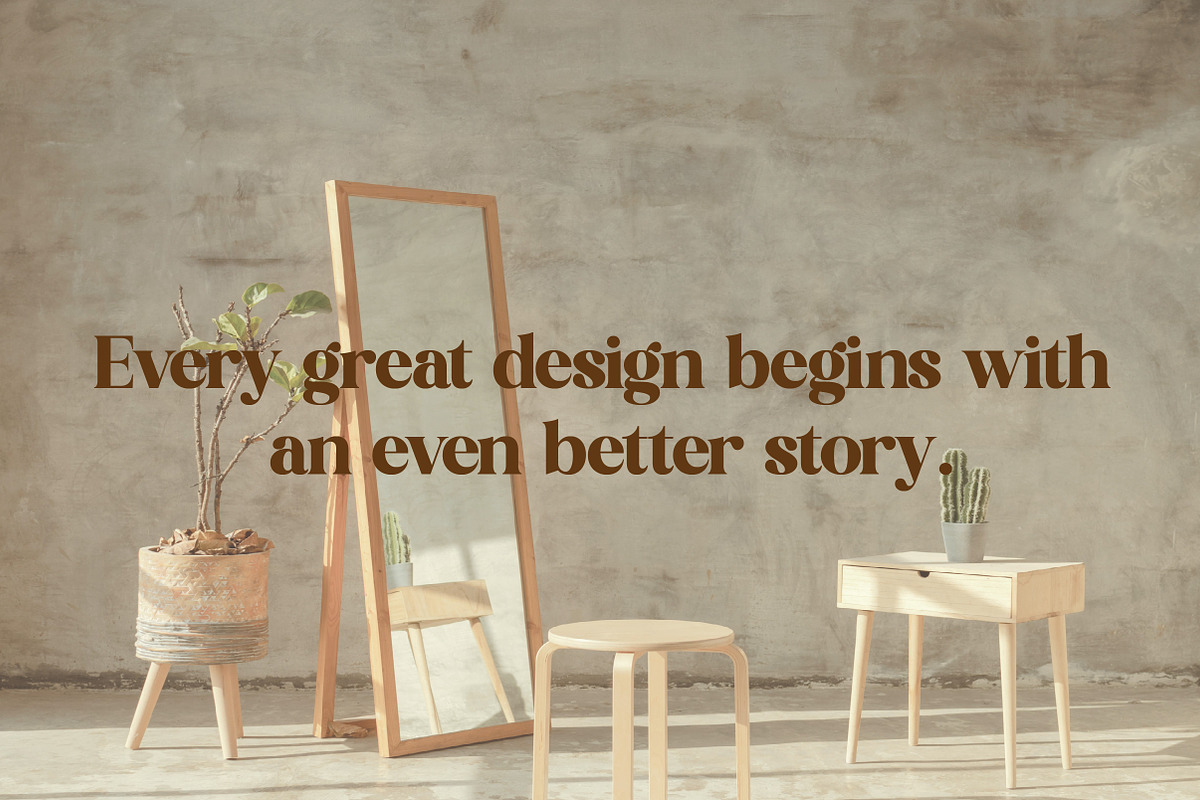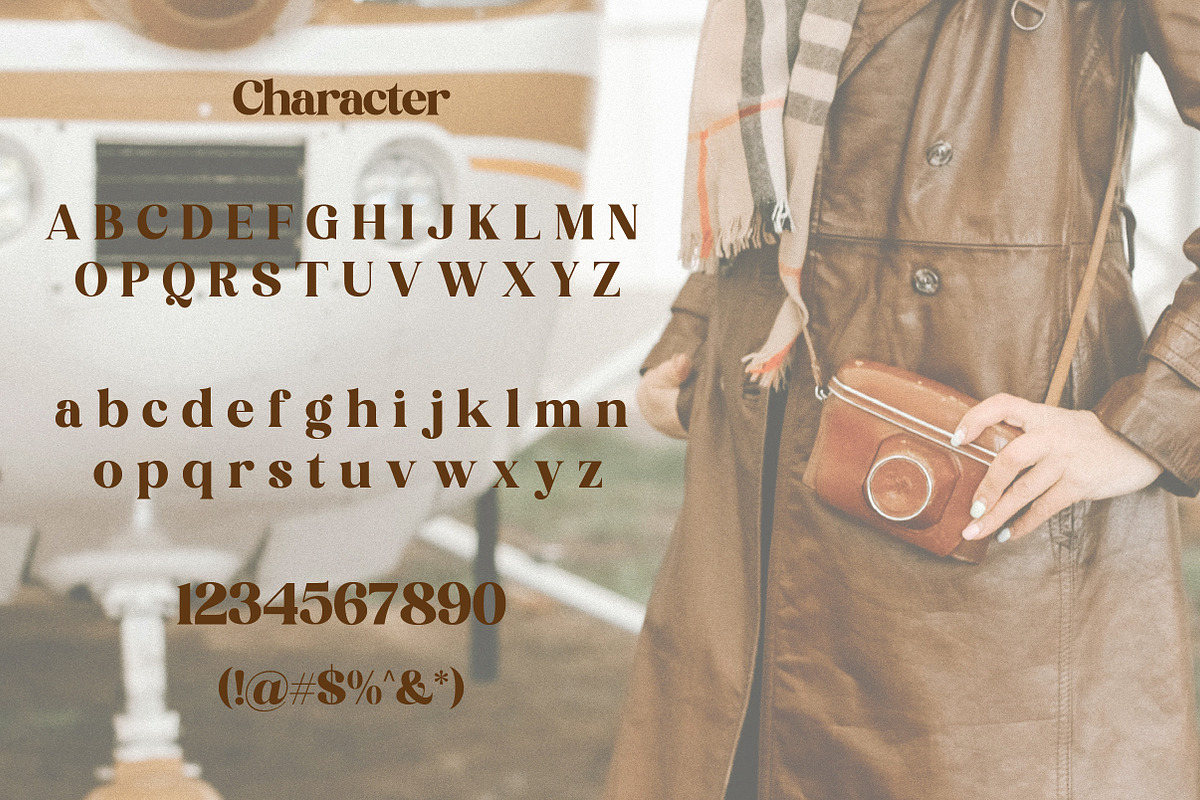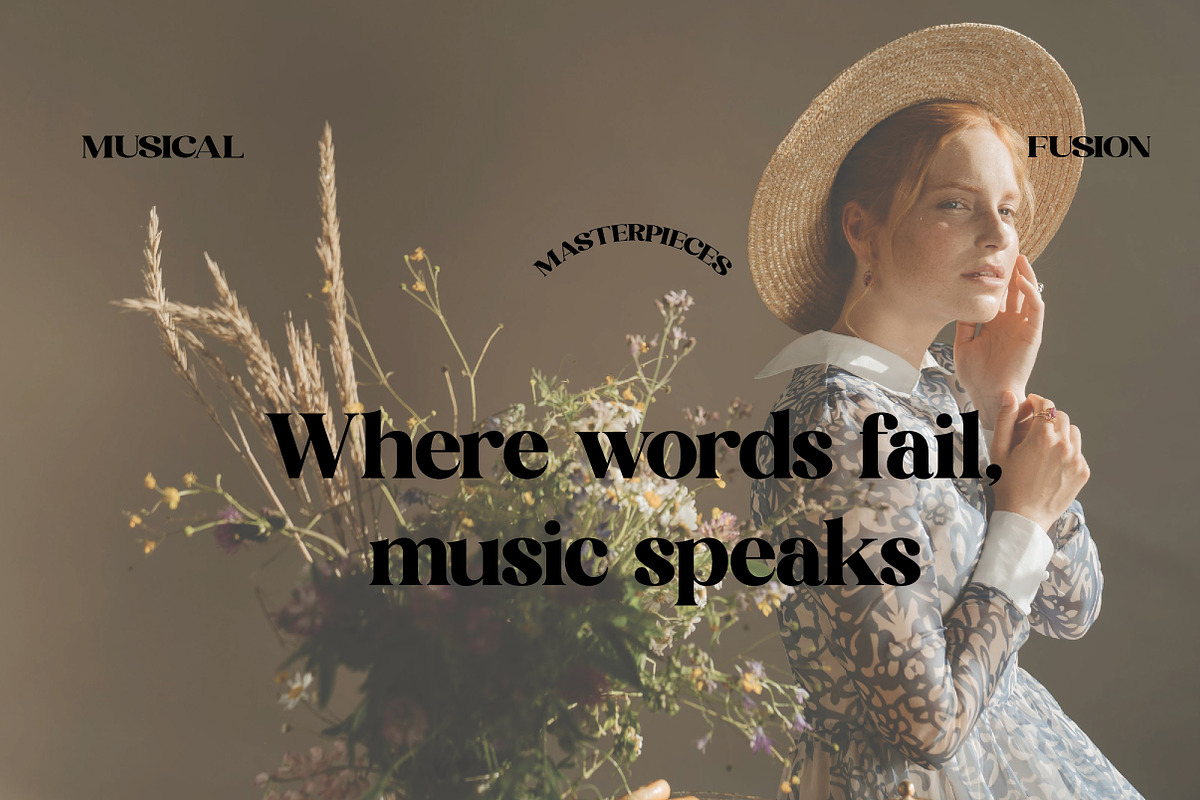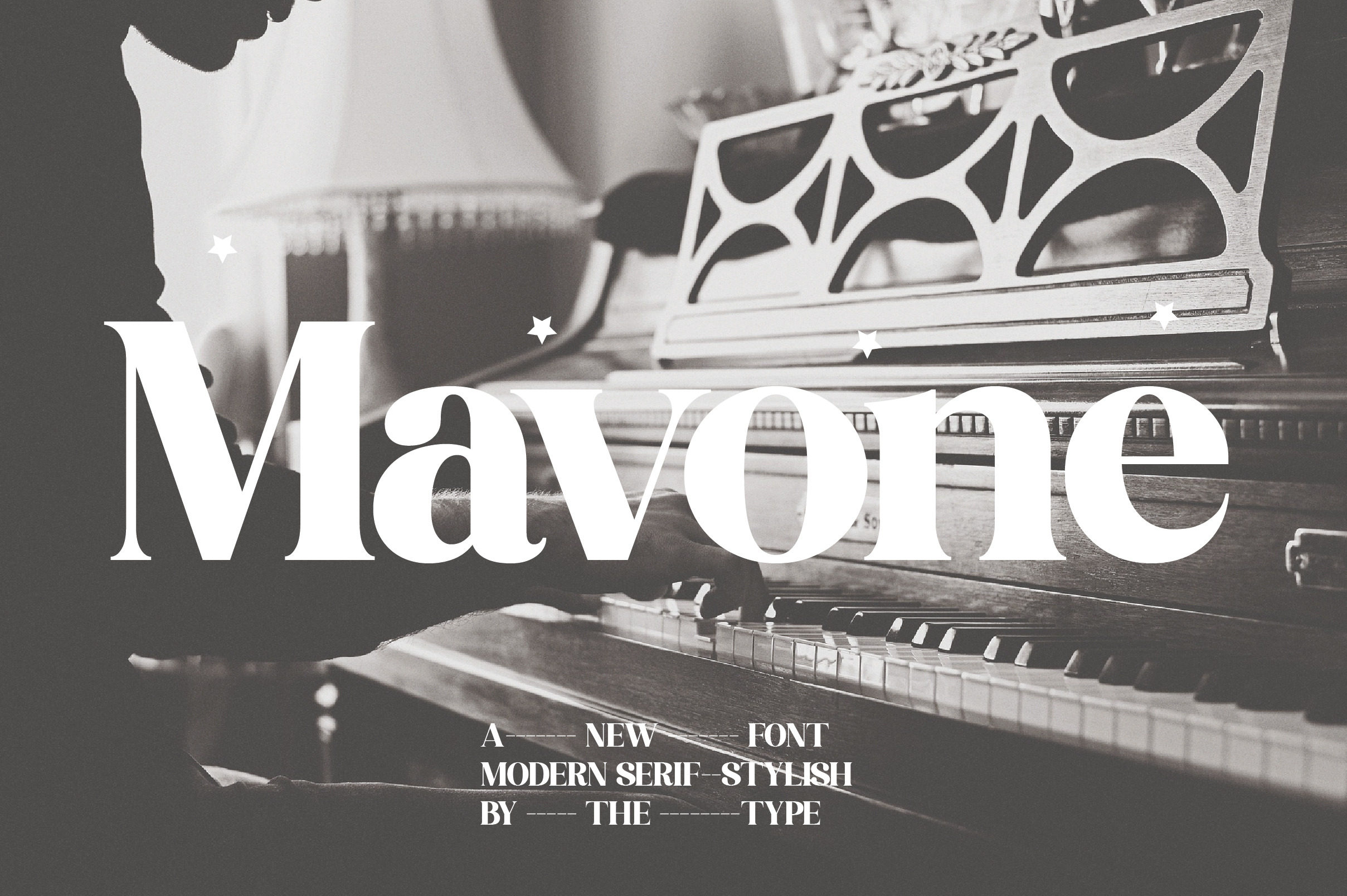
Mavone | Modern Serif Typeface
Mavone is a bold and confident serif typeface designed to make a strong visual impact. With its pronounced serifs, clean lines, and balanced proportions, the Bold style brings both power and elegance to your design work. It's perfect for logos, magazine titles, branding, posters, and premium packaging.
Whether you're creating a high-end editorial layout or a stylish brand identity, Mavone offers a timeless serif structure with a bold, modern personality. Its classic form and sharp details ensure legibility while adding sophistication to any project.
Mavone Bold is ideal for designers who want a strong, refined serif font with a contemporary edge.